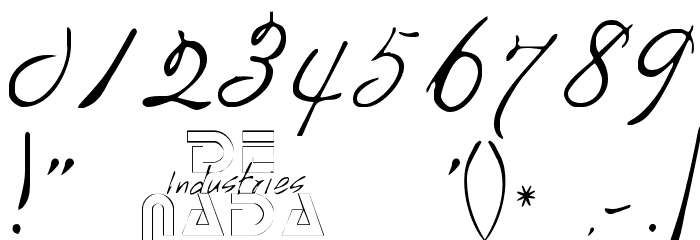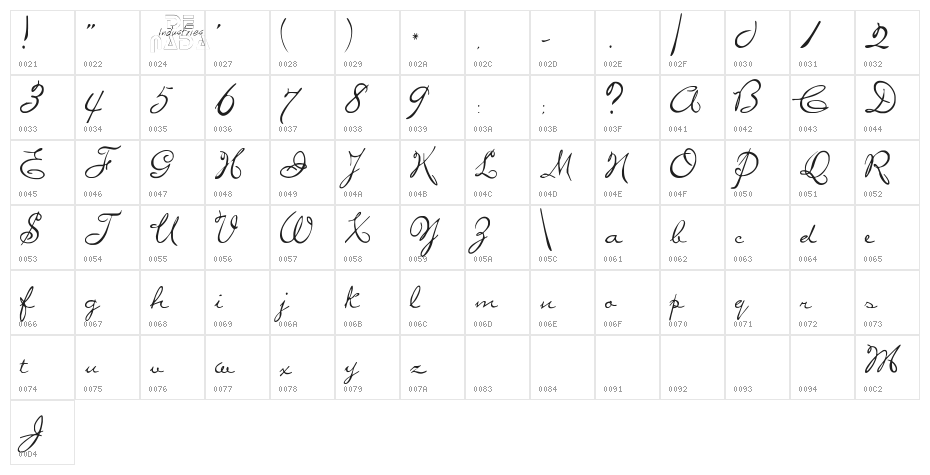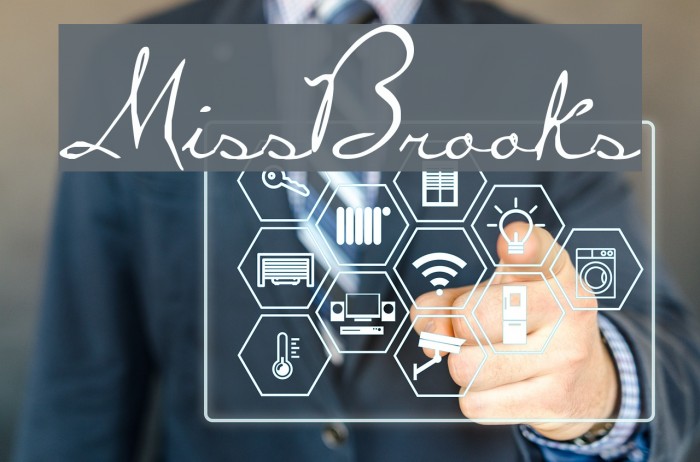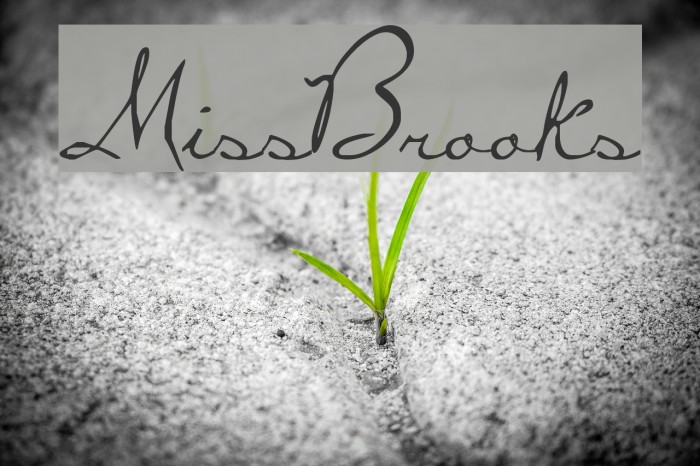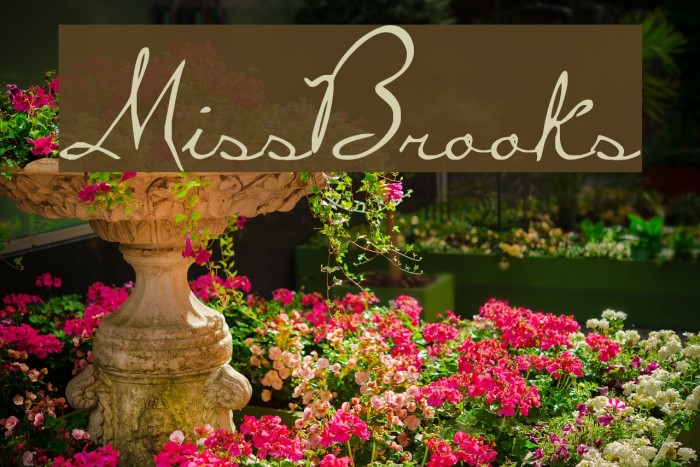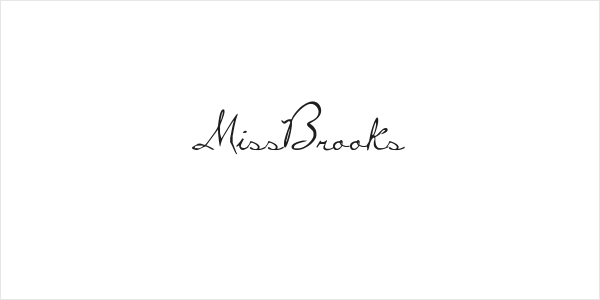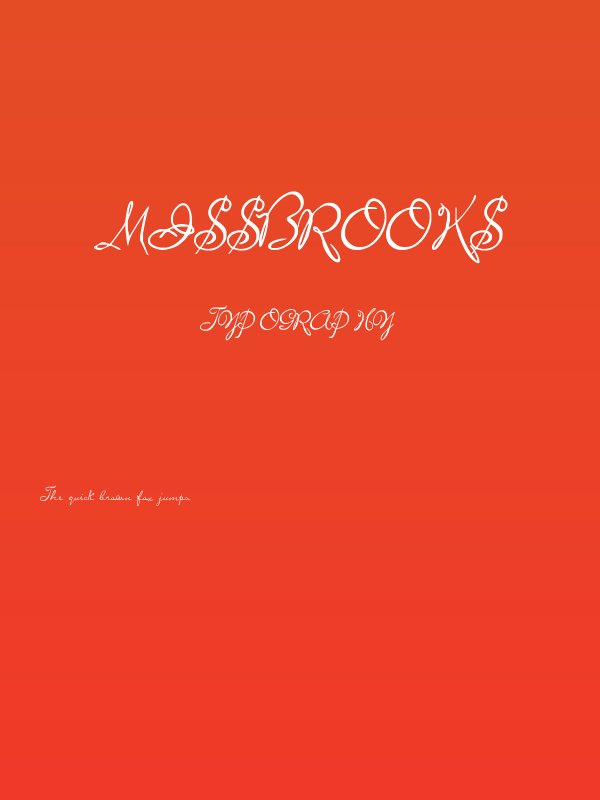
MissBrooks Font
MissBrooks Description
This elegant script font features a flowing, cursive style with intricate loops and swashes, giving it a sophisticated and artistic appearance. The uppercase letters are particularly ornate, with exaggerated flourishes that add a touch of drama and elegance. The lowercase letters maintain a consistent flow, making the text appear connected and seamless. The numerals are stylishly curved, complementing the overall aesthetic. Special characters are designed with the same attention to detail, ensuring a cohesive look across all elements. This font is perfect for projects that require a touch of elegance and sophistication.
| Proposed Projects | Ideal for wedding invitations, elegant branding, high-end product packaging, and artistic posters. |